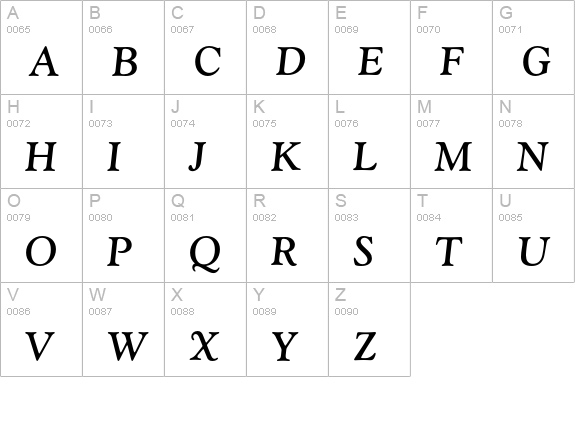
Goudy Old Style Bold Italic Font Details
Goudy Old Style Bold Italic is a strong, high-contrast, italic variant in the Goudy typeface family \xE2\x80\x94 well suited to headlines, attention-grabbing titles, and strong calls-to-action.
Goudy Old Style Bold Italic font exudes a timeless elegance and sophistication, making it the perfect choice for adding a touch of class to your designs. The bold and italic variations of this classic typeface combine to create a striking visual impact, making your text stand out with a sense of authority and style. Whether you're designing a formal invitation, crafting a professional document, or creating eye-catching headlines, Goudy Old Style Bold Italic font will elevate your work to the next level. Its strong yet graceful curves and distinctive serifs give your words a sense of importance and presence. And the best part? Goudy Old Style Bold Italic font is available for free download at FontsMarket.com. So you can easily access this high-quality typeface and enhance your projects without breaking the bank. Don't miss out on the opportunity to elevate your designs with the timeless beauty of Goudy Old Style Bold Italic font.